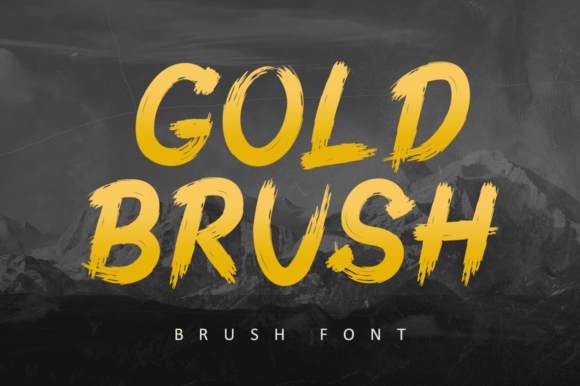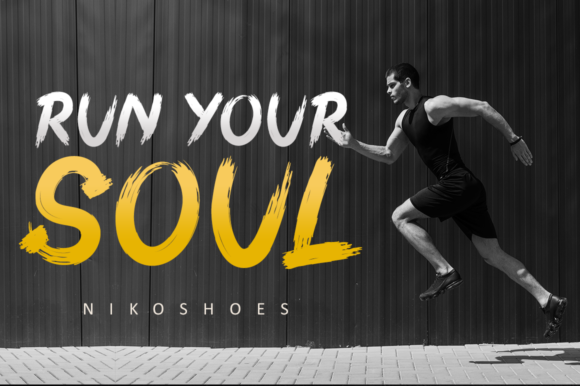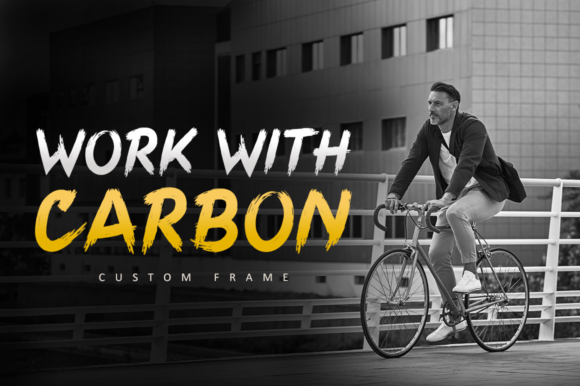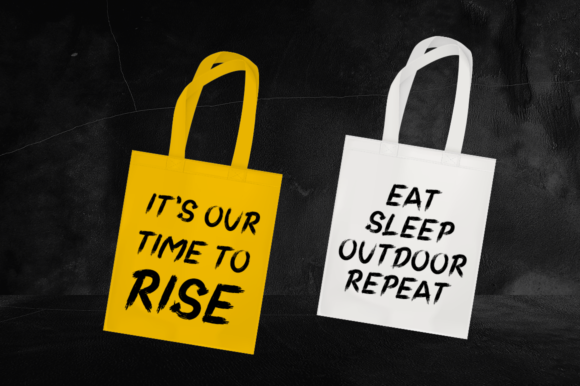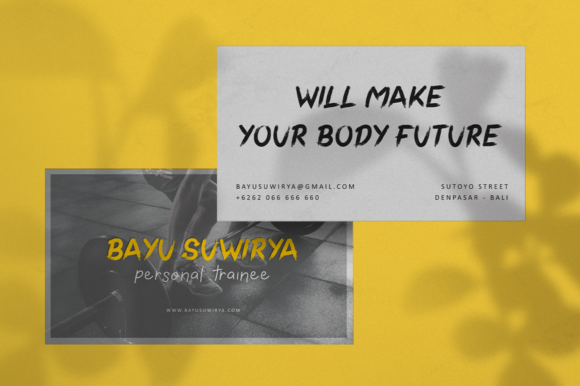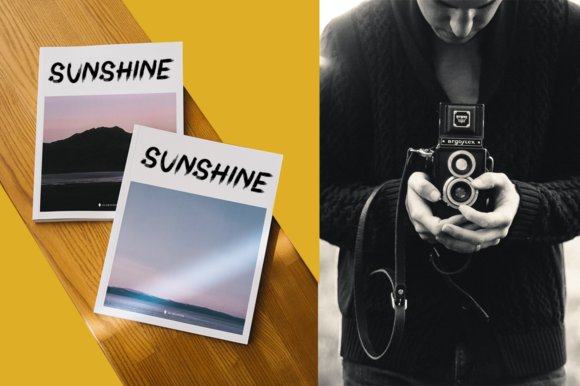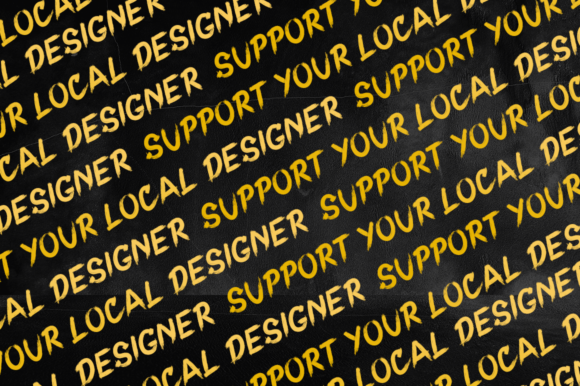
The Perfect Brushstroke: Unlocking the Power of Gold Brush Font
Do you remember the thrill of holding a paintbrush, watching as vibrant colors danced across the canvas, and the satisfying texture that came with each bold stroke? For designers, that same creative spark can be captured with the perfect font – one that’s as bold as it is beautiful. Enter the Gold Brush Font, a stunning display font that brings a touch of drama to any project.
With its assertive style and elegant flair, the Gold Brush Font is the perfect choice for creating eye-catching logos, captivating posters, and unique DIY projects. Whether you’re a seasoned designer or a creative enthusiast, this font is sure to elevate your work and leave a lasting impression. Its versatility and sophistication make it a valuable addition to any design arsenal, and its natural beauty is sure to inspire.
Gold Brush Font Key Features
- Unique Characteristics: The font’s distinctive brush-like strokes and subtle texture give it a warm, hand-crafted feel, ideal for creative and artistic projects.
- Legibility: Gold Brush Font is designed to be highly legible, even at small font sizes, making it suitable for body text, headings, and titles.
Designer Review: Gold Brush Font
First off, I want to say that I’m a big fan of the Gold Brush Font. There’s something about the elegant, handwritten feel that’s just perfect for a variety of design projects. ✨ The font’s subtle imperfections and textured look really add to its charm, making it a great choice for anything from invitations to marketing materials.
- Flexibility: The Gold Brush Font is incredibly versatile and can be used in a range of contexts, from formal to informal.
- Expressive: The font’s handwritten feel makes it perfect for conveying personality and emotion in your designs.
- Customizable: With its various weights and styles, you can easily tailor the font to fit your specific design needs.
That being said, I do have a few reservations about the Gold Brush Font. ⚠️ For one, the font can be a bit difficult to read at smaller sizes, which may limit its use in certain situations. Additionally, the font’s unique look can sometimes feel overdone or clichéd, which may not be to every designer’s taste.
Overall, I think the Gold Brush Font is a solid choice for designers looking for a unique and expressive font. While it may have some limitations, its strengths far outweigh its weaknesses, making it a valuable addition to any design toolkit.
The Gold Brush Font is ideal for creating elegant, luxurious designs. Use it for:
High-end branding and logos
Special occasion announcements
To get the most out of the Gold Brush Font, experiment with different font sizes, colors, and styles to achieve the desired look.
Alternatives to Gold Brush Font for Designers
Great Vibes is a beautiful, handwritten font perfect for creating a relaxed and casual atmosphere. It’s ideal for use in headings, titles, and quotes, adding a touch of elegance and sophistication to any design project.
Comparison to Gold Brush Font: Great Vibes has a more fluid and organic feel, making it suitable for designs that require a softer, more natural look. Unlike Gold Brush Font, which has a more metallic and refined appearance, Great Vibes is more laid-back and effortless.
Carolyna Pro is a modern, elegant script font ideal for use in luxury branding, fashion, and fine art designs. Its fluid lines and refined feel make it perfect for creating high-end, sophisticated designs.
Comparison to Gold Brush Font: Carolyna Pro has a more refined and polished appearance, making it suitable for high-end designs that require a level of sophistication and elegance. Unlike Gold Brush Font, which has a more vintage and rustic feel, Carolyna Pro is more modern and sleek.